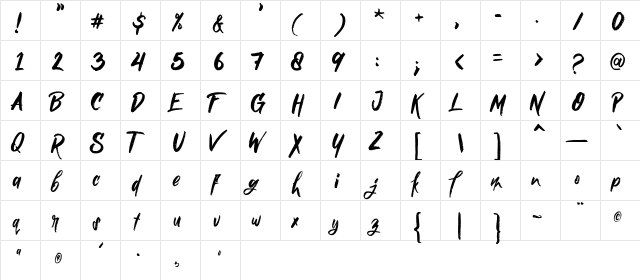
Nielsen DEMO
Design Context for Nielsen Typeface
Nielsen is a composed and adaptable typeface that performs quietly and consistently across a wide range of design contexts.